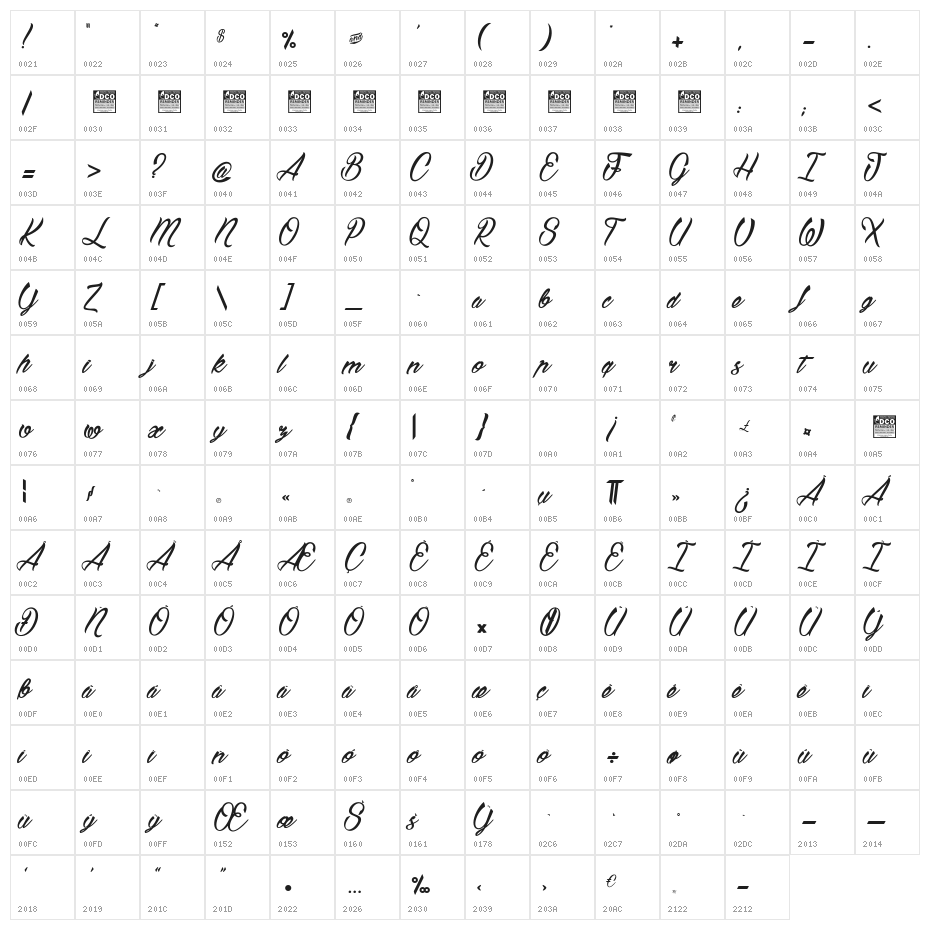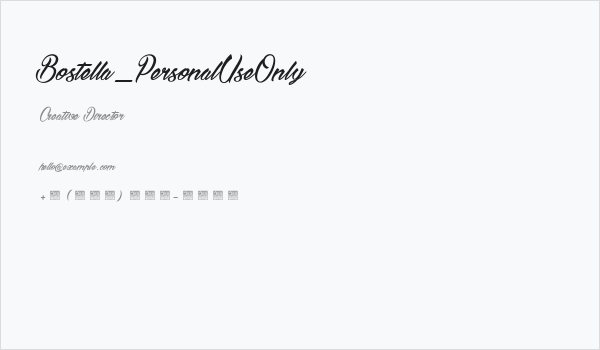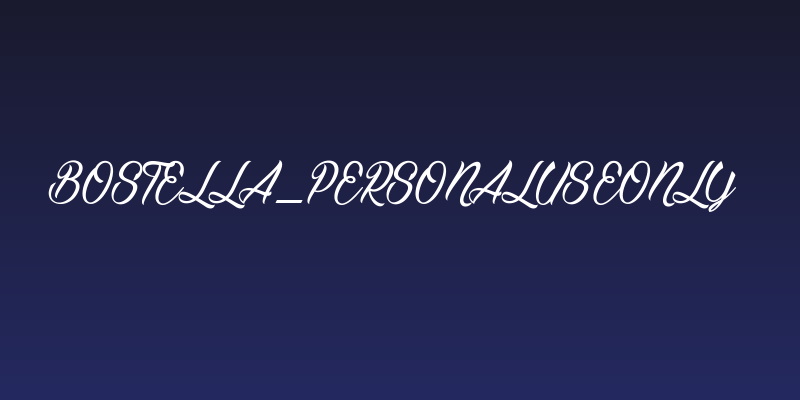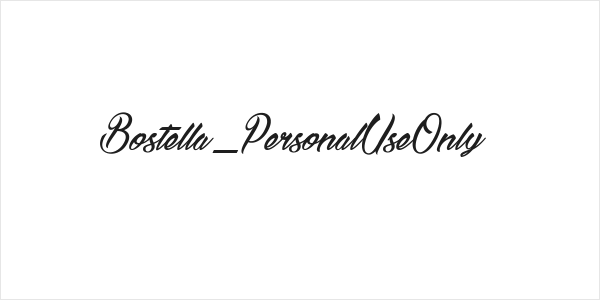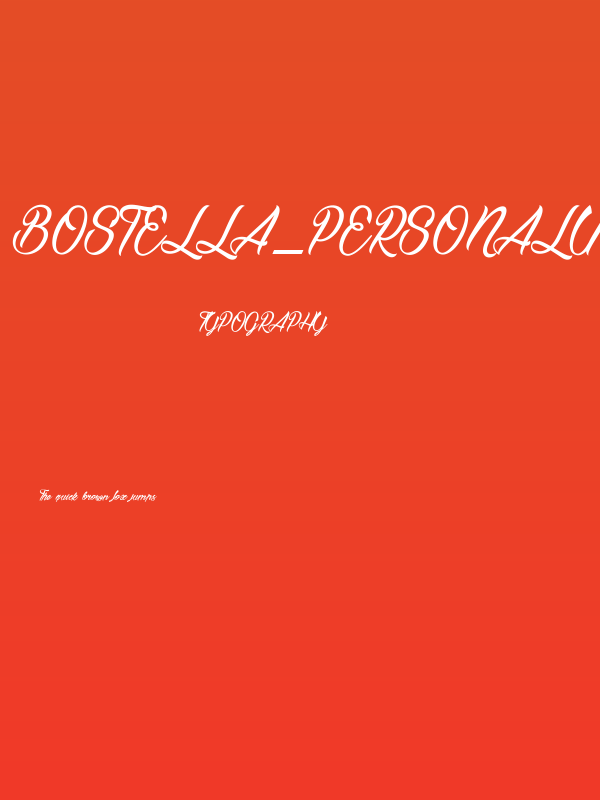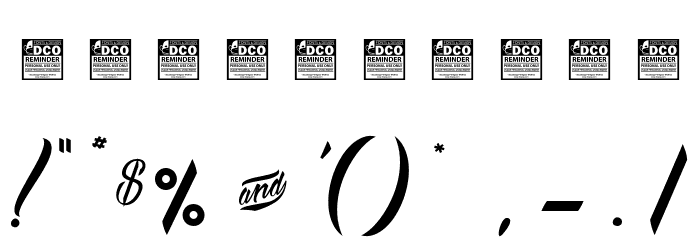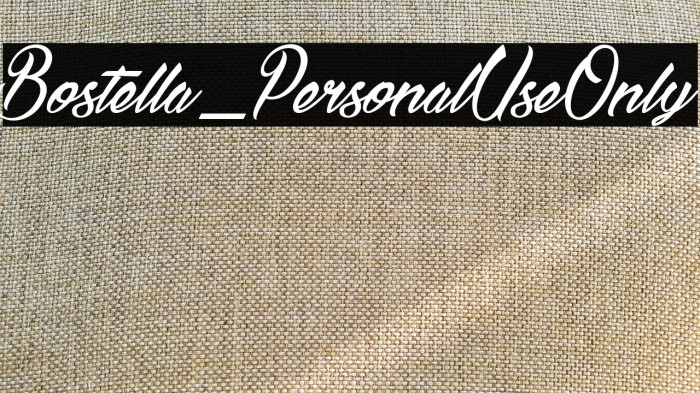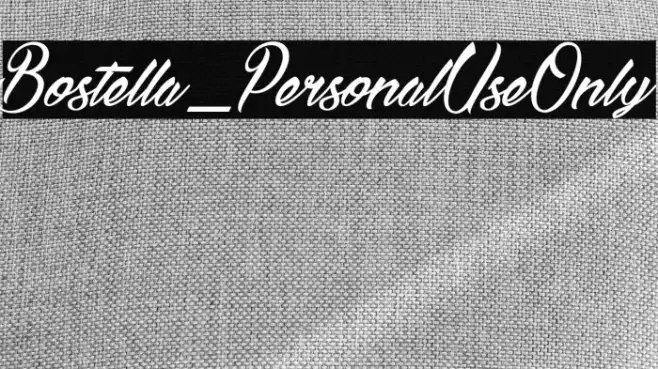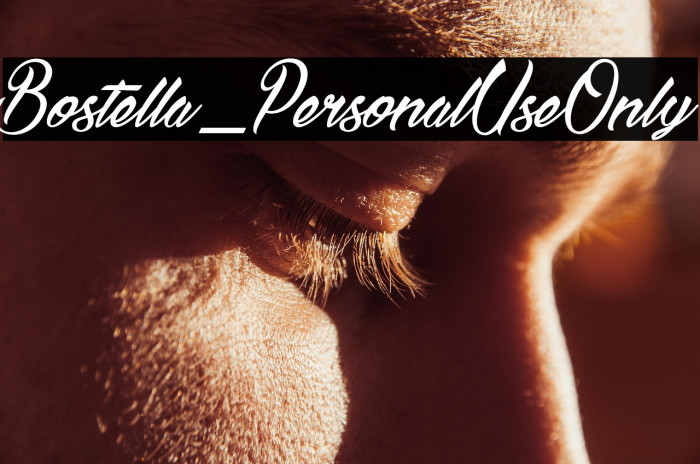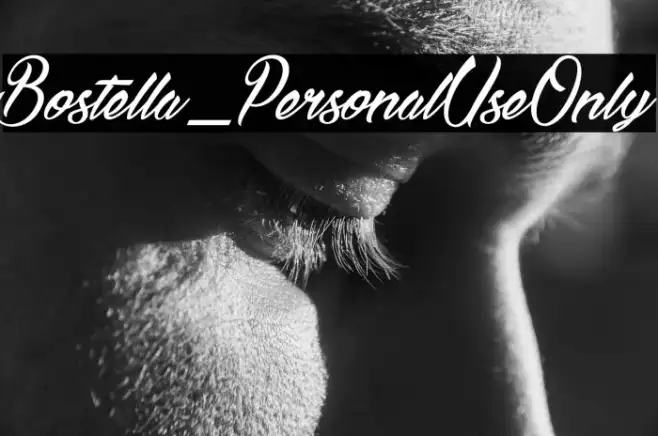
Bostella_PersonalUseOnly Font
Bostella_PersonalUseOnly Description
This font features an elegant and flowing script style, characterized by its smooth, cursive strokes and artistic flair. The uppercase letters are bold and sweeping, with intricate loops and curves that give a sense of movement and grace. The lowercase letters maintain a consistent flow, complementing the uppercase with their rounded forms and connected strokes. The numerals and special characters are designed with the same attention to detail, ensuring a cohesive look across all elements. This font's overall appearance is both sophisticated and dynamic, making it suitable for projects that require a touch of elegance and personality.
| Proposed Projects | Ideal for wedding invitations, branding, logos, and elegant packaging designs. |